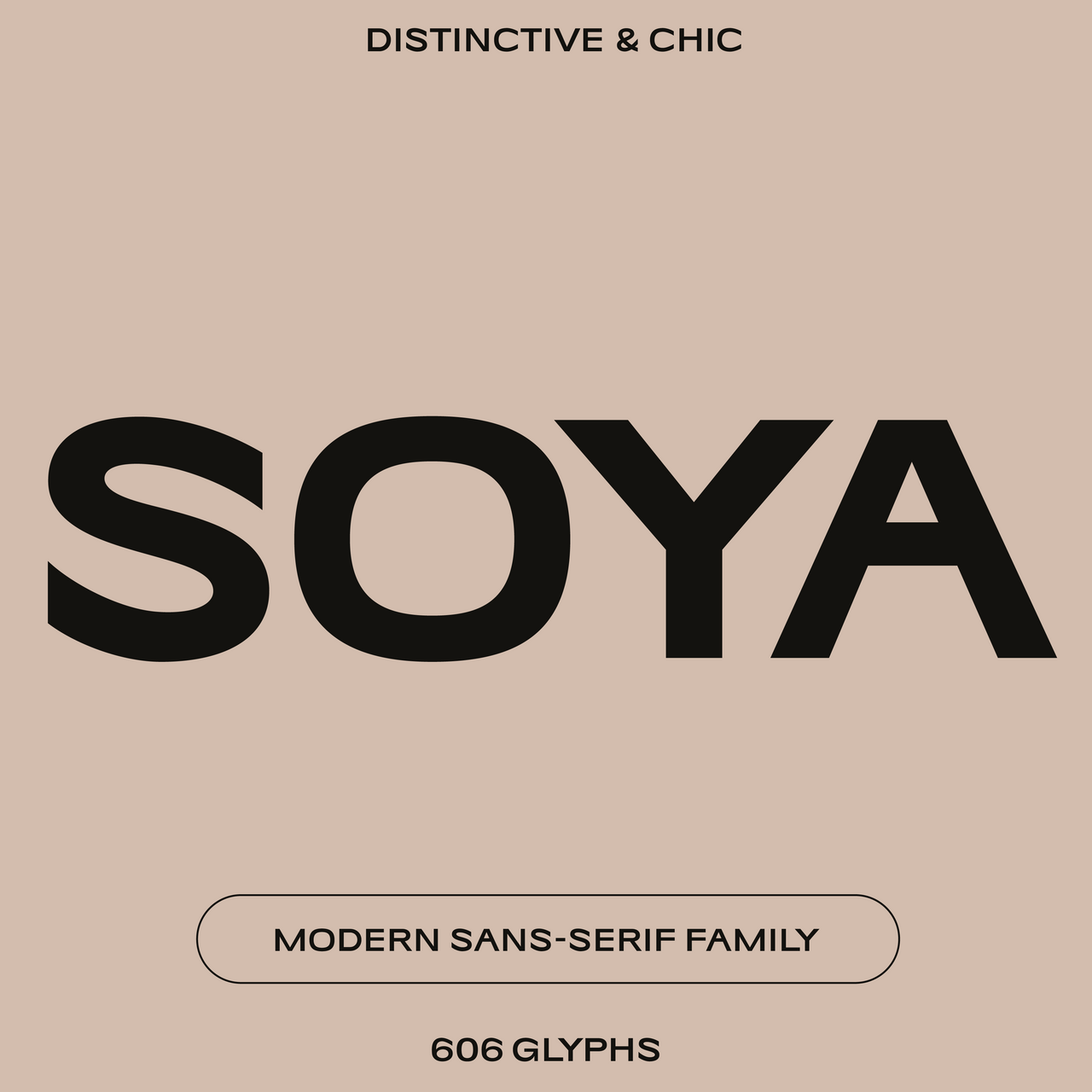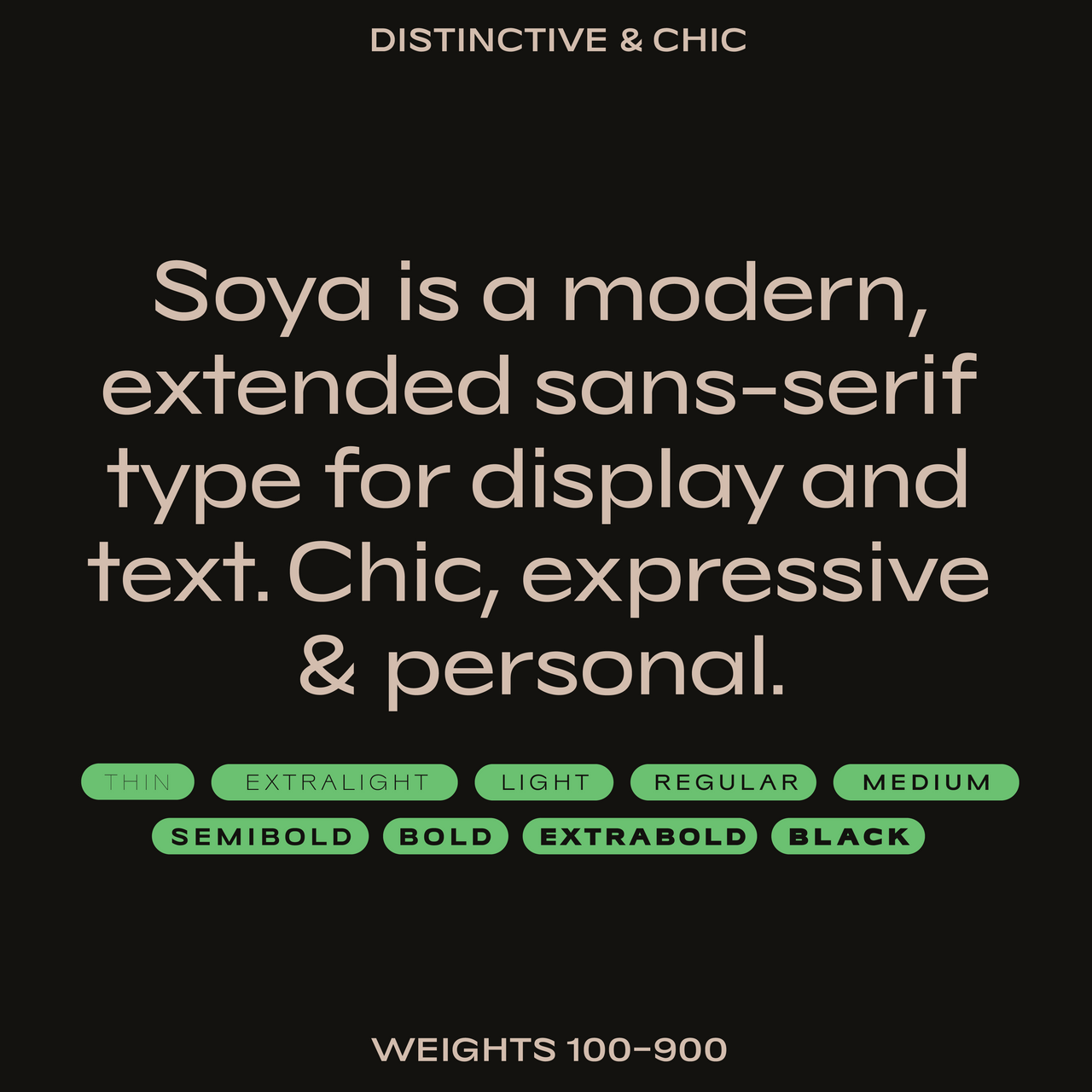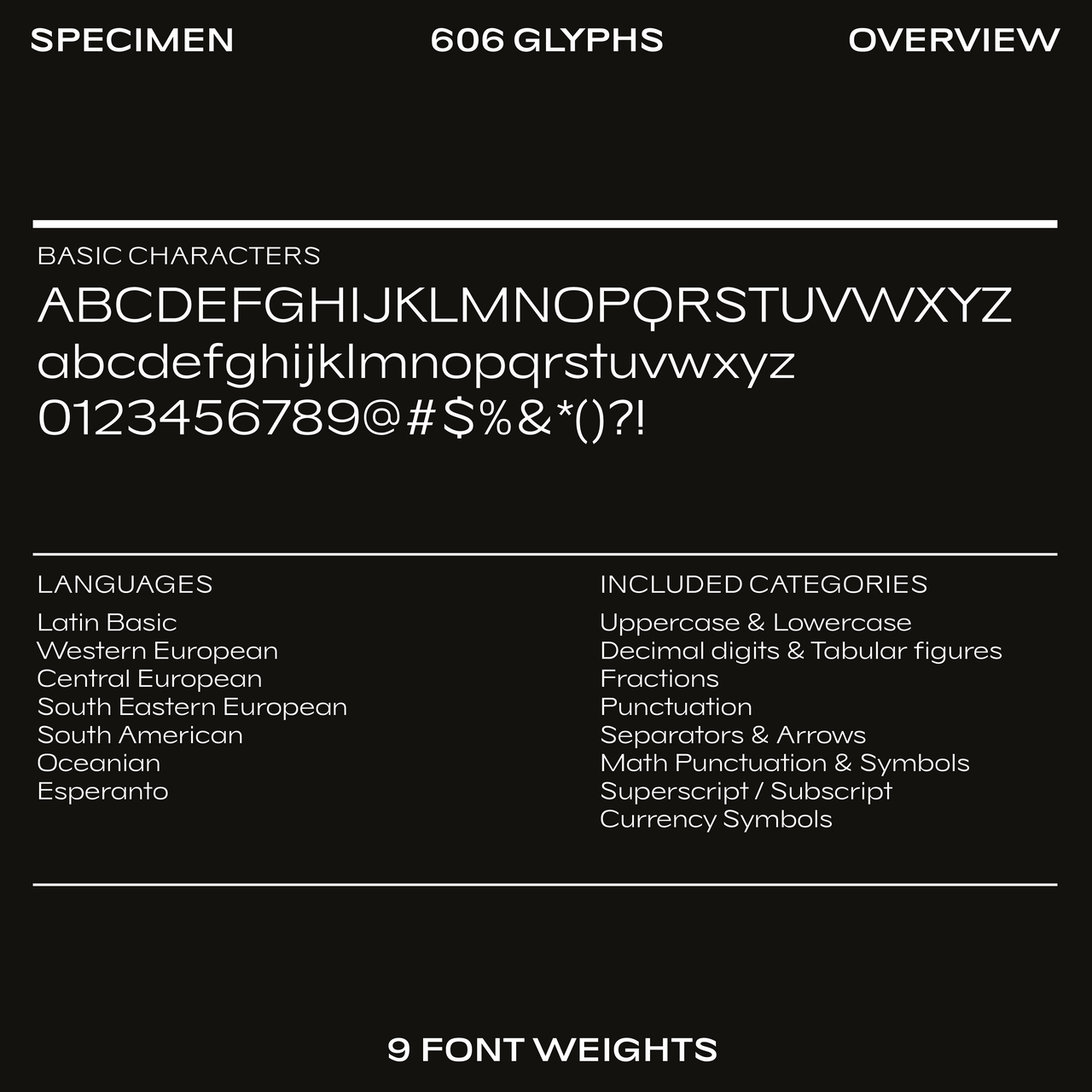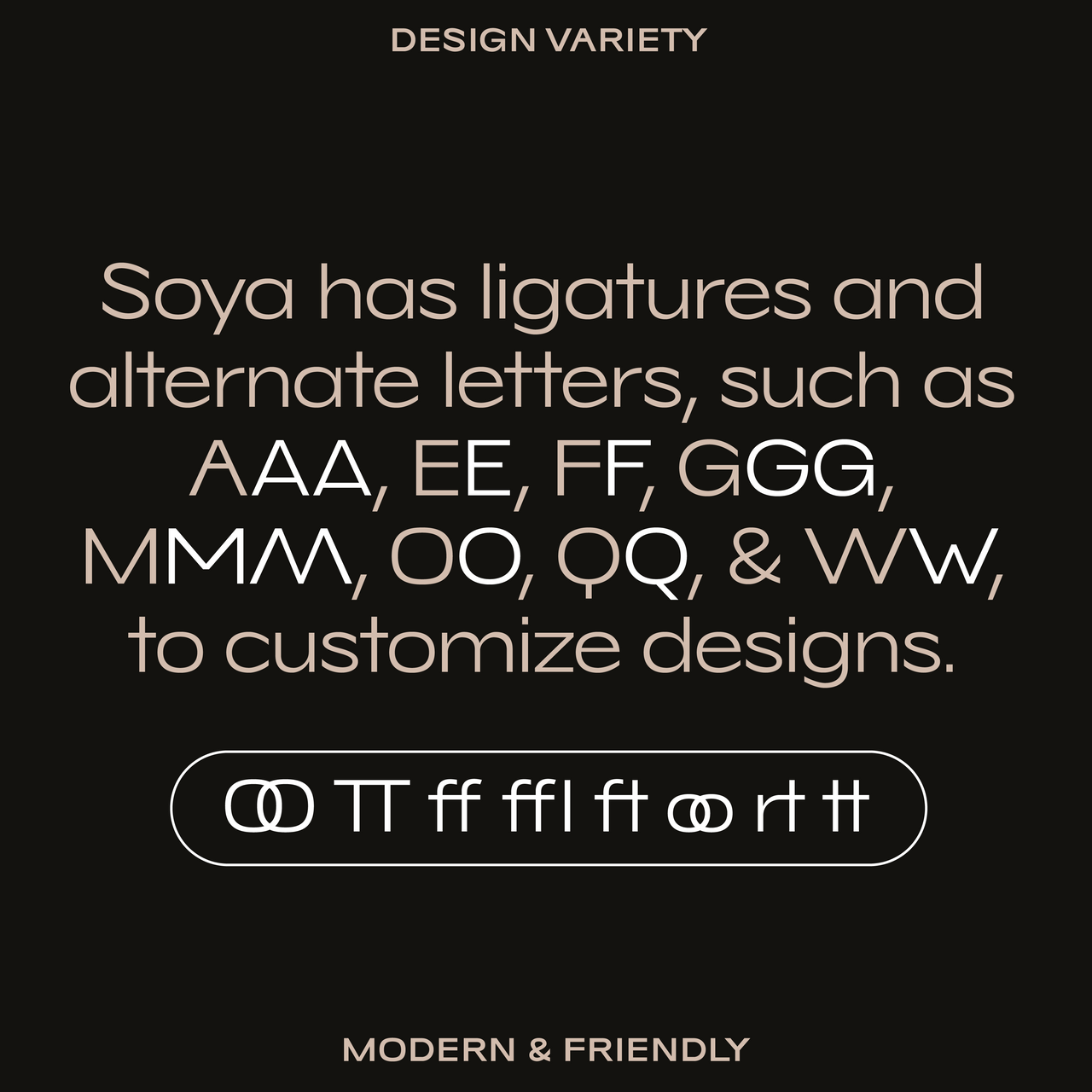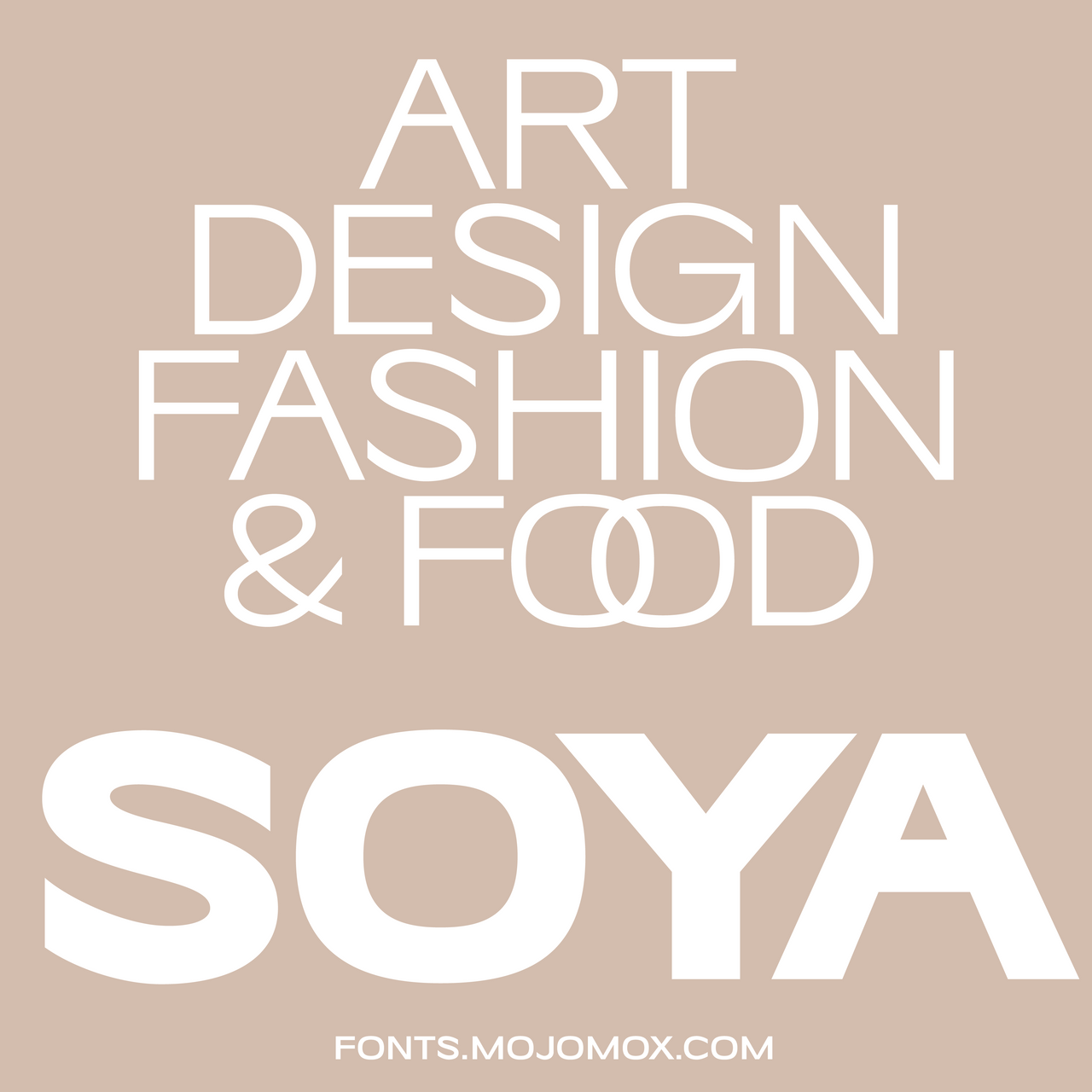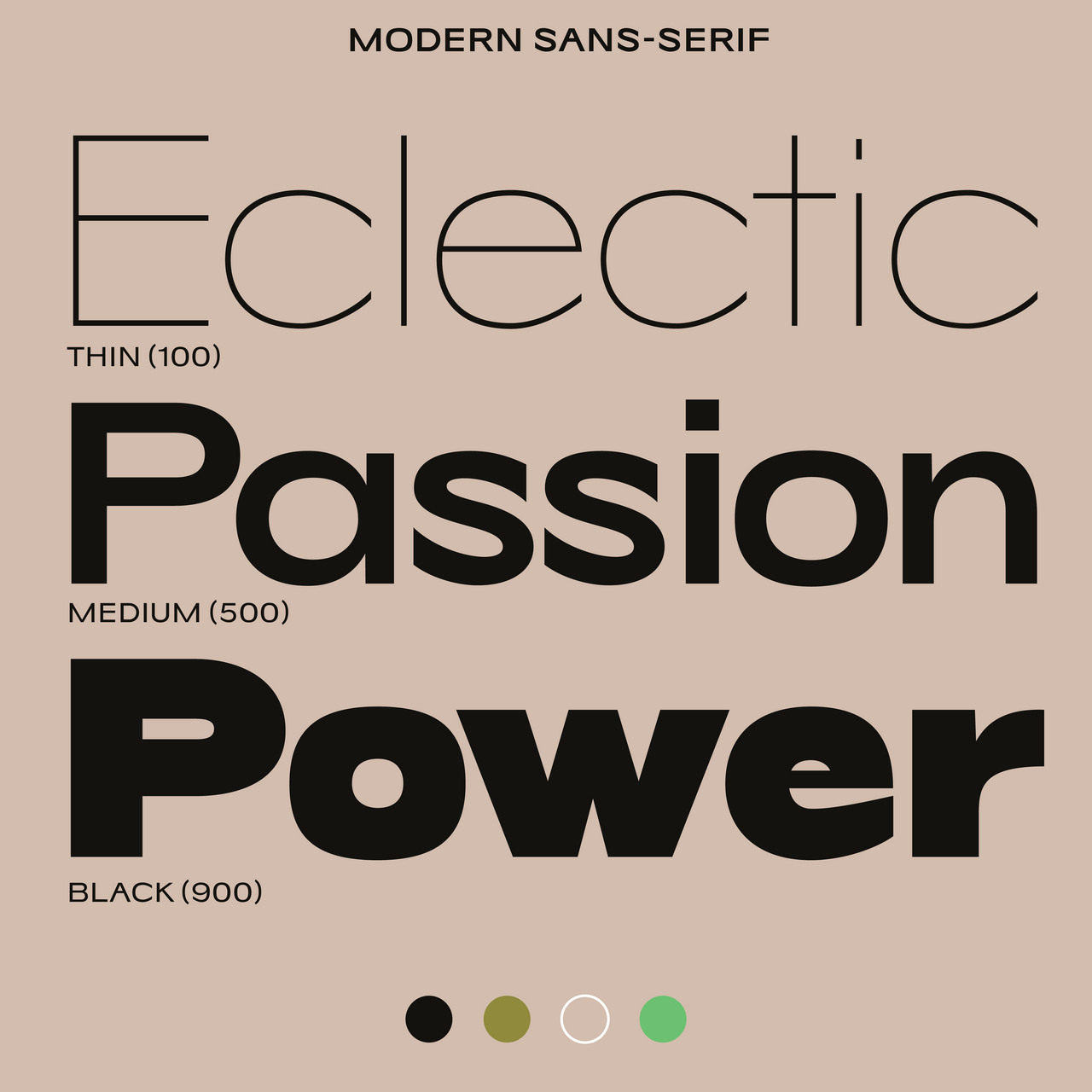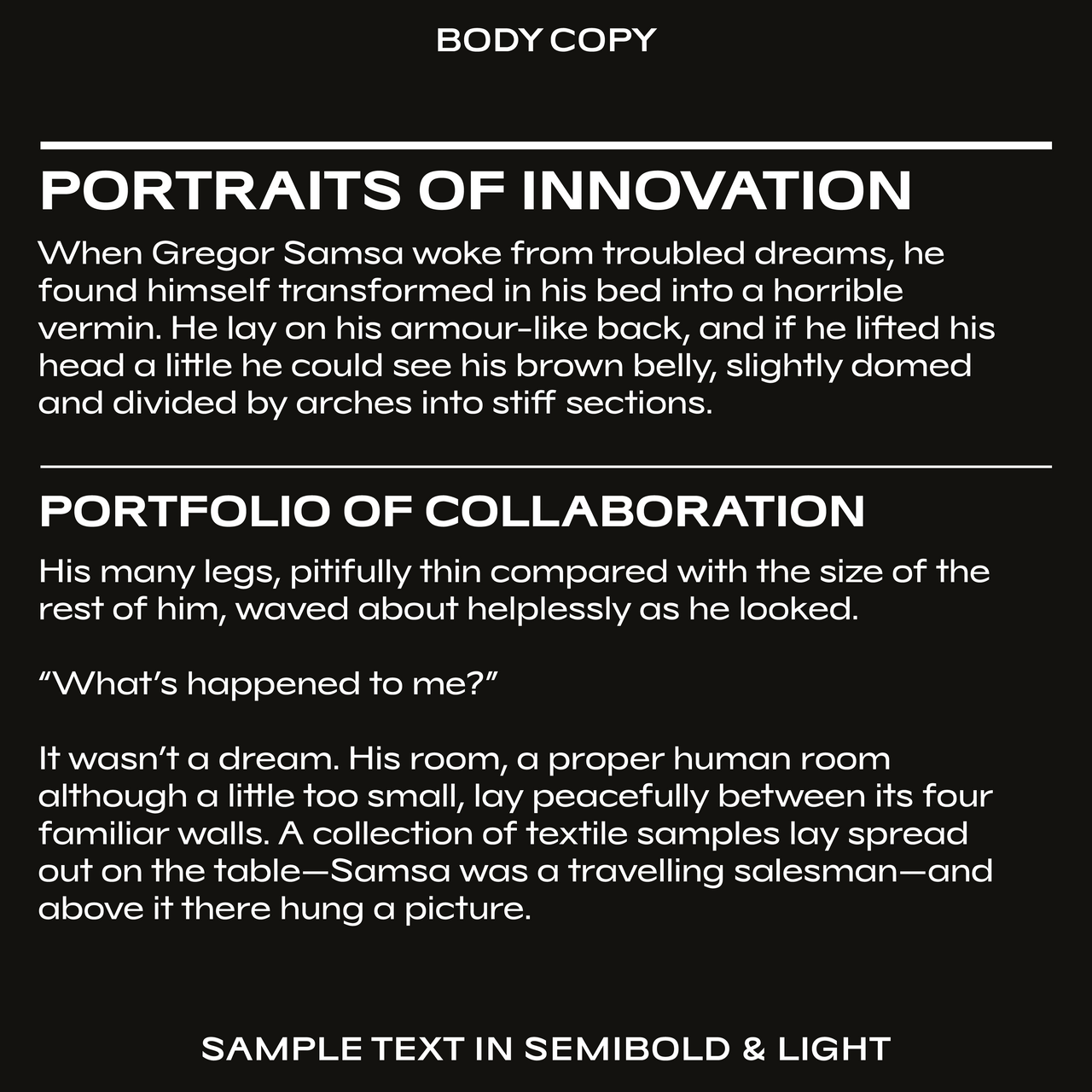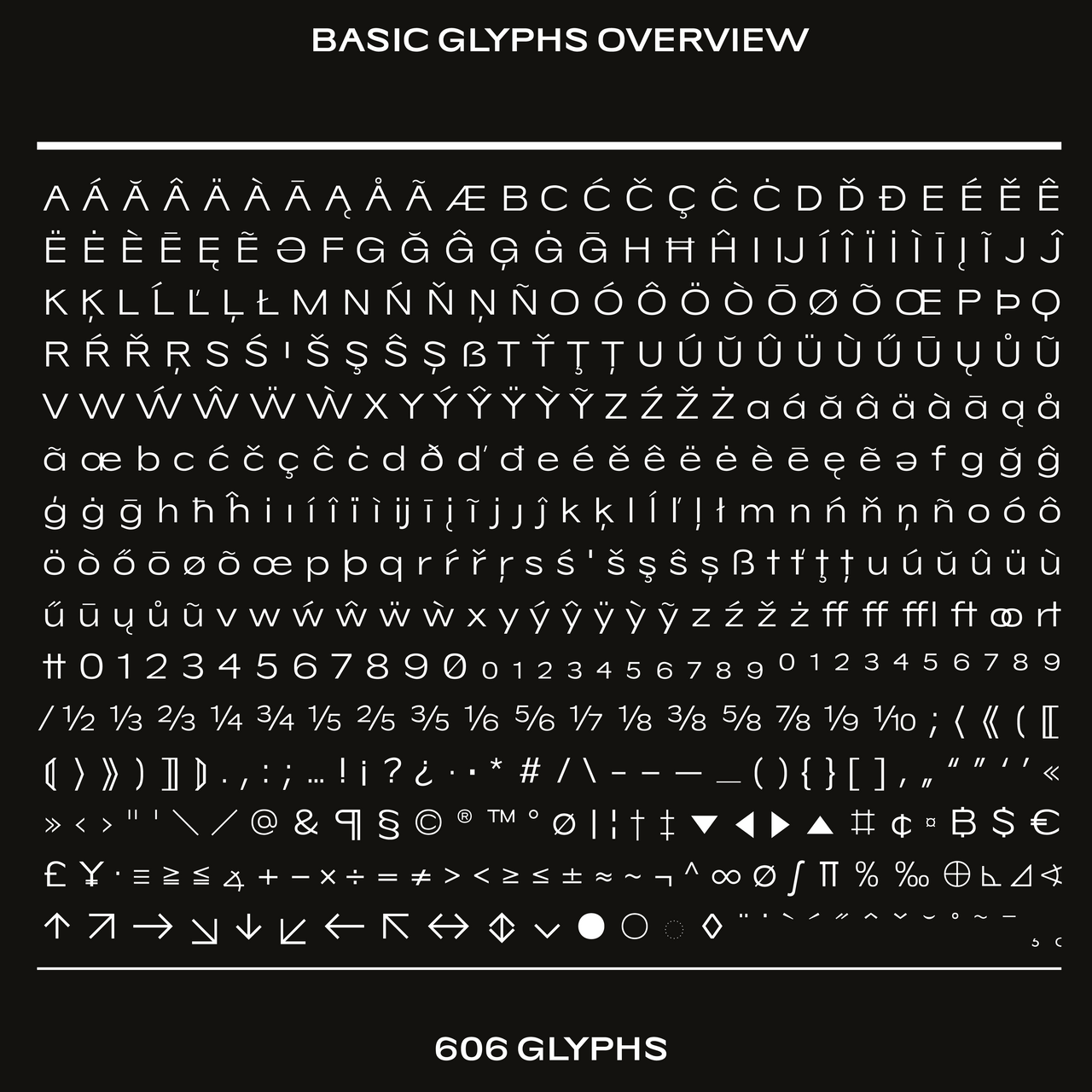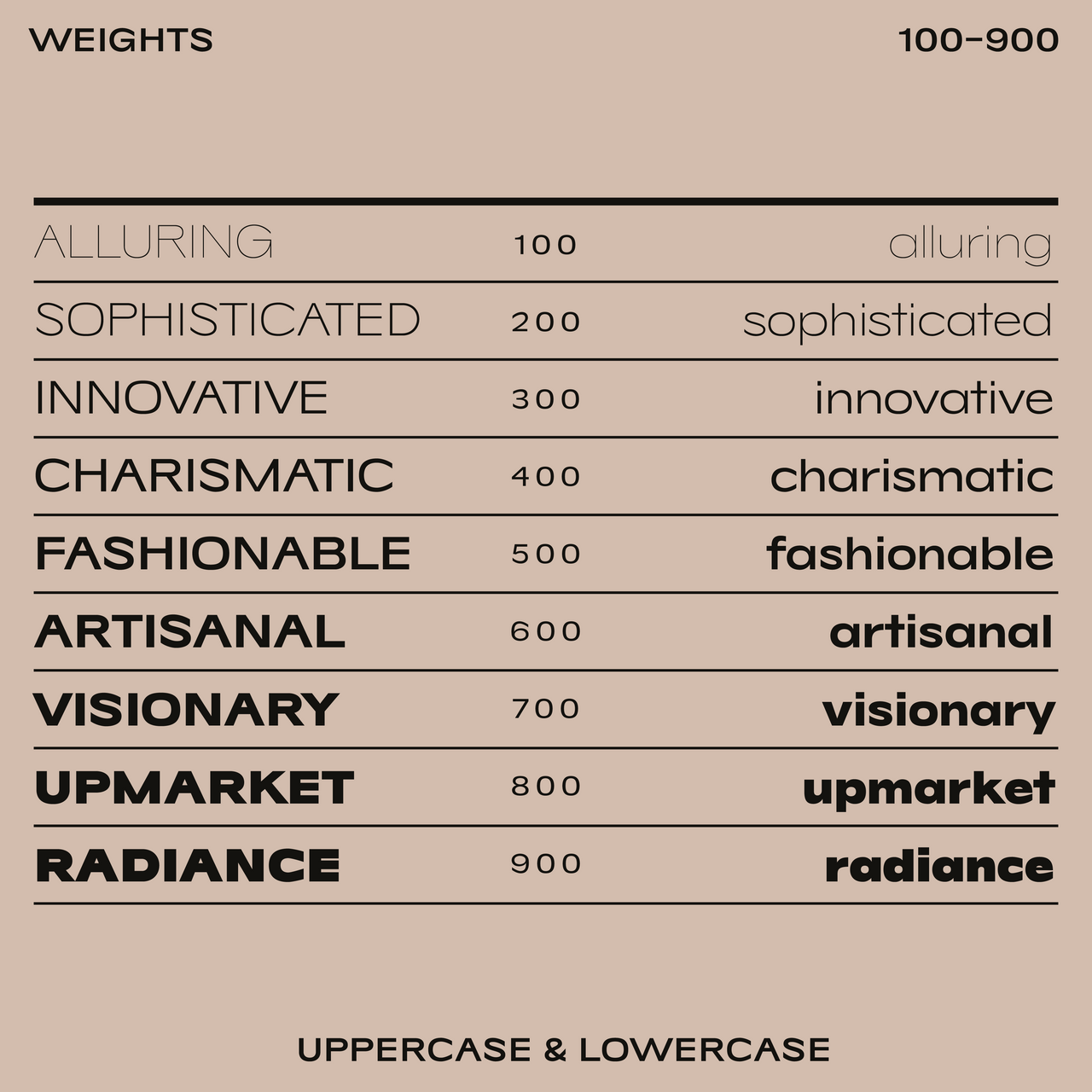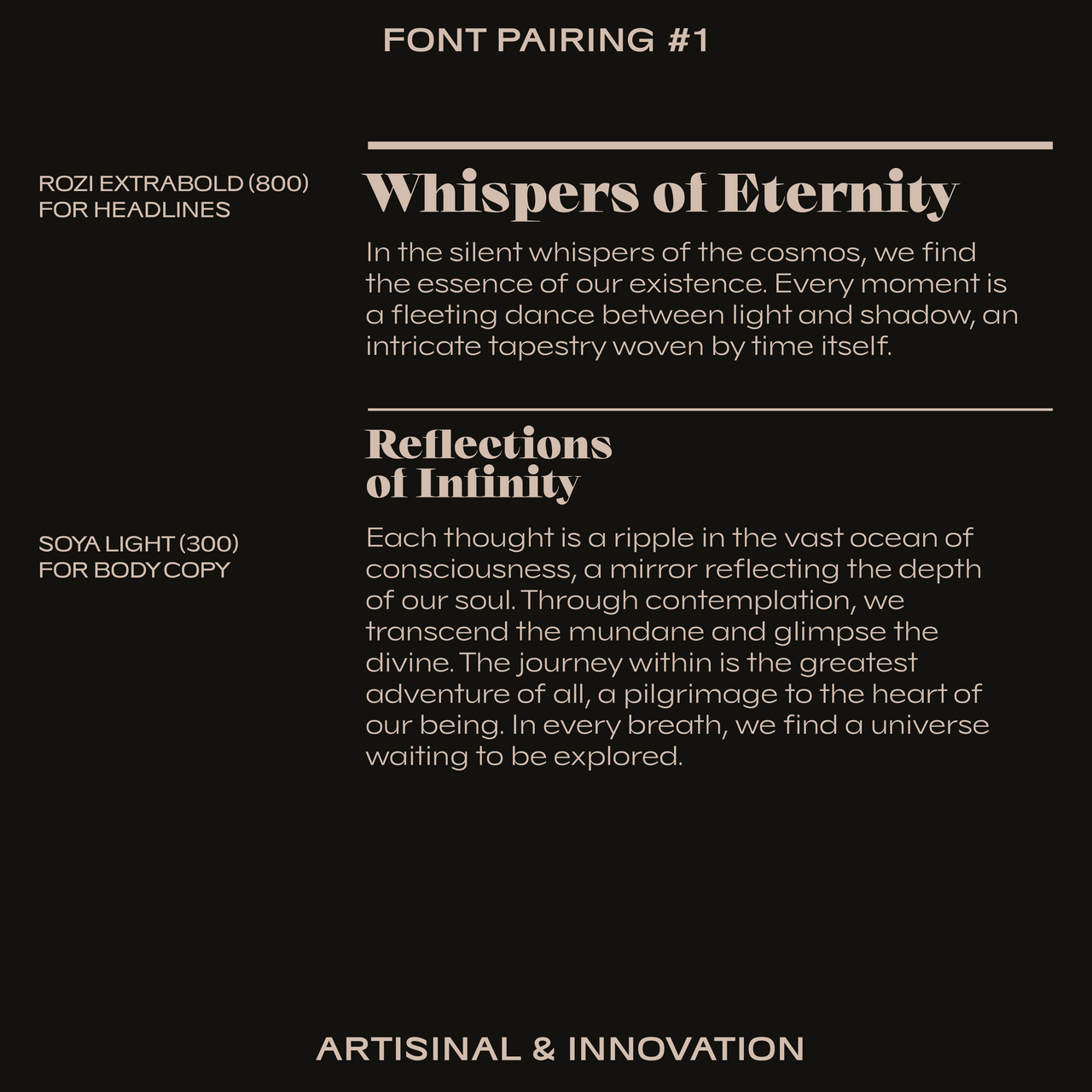
Soya—Chic, trendy font for modern food and fashion
Extended typeface for branding, titles, and body copy. Soya is a chic, expressive & personal font. Soya features wide, generously rounded letters for a trendy design quality, paired with distinct cut-off terminals—perfect for art, design, fashion, and food branding. Great for Christmas marketing. Elegant and upmarket in lighter styles, and younger, louder in bolder styles. Soya works great in all uppercase for logo designs and titles. Soya has ligatures & alternate letters to easily customize designs. Available in nine font weights. Soya pairs well with Rozi, Goji, Kijs, and Quil.